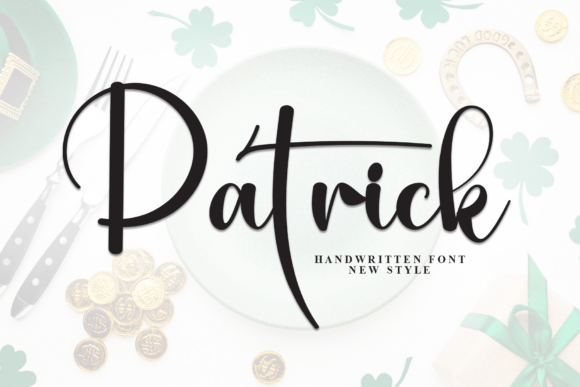
Introducing Patrick Font: The Epitome of Artistic Flair and Contemporary Elegance
In the realm of typography, few fonts manage to strike a balance between artistic expression and modern sophistication. Patrick Font, however, stands out as a shining example of a stylish script font that embodies both qualities. With its fluid brush strokes, dynamic curves, and expressive letterforms, Patrick Font brings to the table a fresh and contemporary take on hand-painted calligraphy.
The Artistic Essence of Patrick Font
At its core, Patrick Font is designed to evoke the feeling of hand-painted calligraphy, but with a modern twist that sets it apart from more traditional script fonts. The fluid brush strokes that characterize this font are not just aesthetically pleasing; they also contribute to its highly expressive nature. Each letterform is crafted to convey a sense of movement and energy, making Patrick Font an excellent choice for designs that require a dynamic and vibrant touch.
One of the defining features of Patrick Font is its dynamic curves. These curves are not merely decorative; they play a crucial role in giving the font its unique character and flow. The way the curves interact with the straight lines and strokes creates a harmonious balance that catches the eye and engages the viewer. This balance is essential for making any design stand out, whether it’s a logo, an invitation, packaging, or social media graphics.
Versatility and Application
Patrick Font’s versatility is one of its most compelling attributes. Its application spans a wide range of design projects, making it an invaluable asset for designers. Here are some of the areas where Patrick Font truly shines:
- Logos: For businesses looking to establish a brand identity that is both creative and sophisticated, Patrick Font offers a stylish solution. Its unique letterforms and elegant flow can help a logo stand out in a crowded market.
- Invitations: Whether it’s a wedding invitation, a birthday party invite, or any other special occasion, Patrick Font adds a touch of class and personalization that can make the invitation memorable.
- Packaging: Product packaging is an area where brands can benefit greatly from distinctive typography. Patrick Font can help products stand out on shelves and convey a brand’s personality.
- Social Media Graphics: In the digital age, social media graphics are crucial for engagement. Patrick Font can elevate social media posts, stories, and banners, making them more visually appealing and engaging.
The natural flow and vibrant character of Patrick Font ensure that it can adapt to various design needs without losing its artistic essence. This adaptability makes it a go-to font for designers looking to infuse their work with a creative and sophisticated touch.
The Impact of Patrick Font on Design
The introduction of Patrick Font into a design project can have a significant impact, both visually and creatively. Its ability to deliver both visual impact and versatility means that designers can push the boundaries of their creativity, experimenting with different layouts, colors, and themes.
Moreover, Patrick Font’s contemporary elegance ensures that designs do not only look modern but also timeless. This is particularly important in today’s fast-paced design world, where trends come and go. A font like Patrick offers a way to stay current while also investing in a design that will stand the test of time.
The visual impact of Patrick Font is immediate. Its expressive letterforms and fluid strokes draw the viewer’s eye, creating a focal point in any design. This is especially useful in digital media, where capturing the viewer’s attention is crucial for engagement and conversion.
Patrick Font is more than just a stylish script font; it’s a tool for designers to express their creativity and bring a touch of elegance to their work. With its fluid brush strokes, dynamic curves, and expressive letterforms, it captures the essence of hand-painted calligraphy with a modern twist. Its versatility and wide range of applications make it an ideal choice for various design projects, from logos and invitations to packaging and social media graphics.
As design continues to evolve, fonts like Patrick play a pivotal role in shaping the visual language of brands and creative projects. By incorporating Patrick Font into their designs, designers can ensure that their work stands out, communicates effectively, and leaves a lasting impression on viewers.
In conclusion, Patrick Font is a valuable addition to any designer’s toolkit. Its artistic flair, contemporary elegance, and versatility make it a font that can elevate designs to new heights, offering both visual impact and creative freedom.